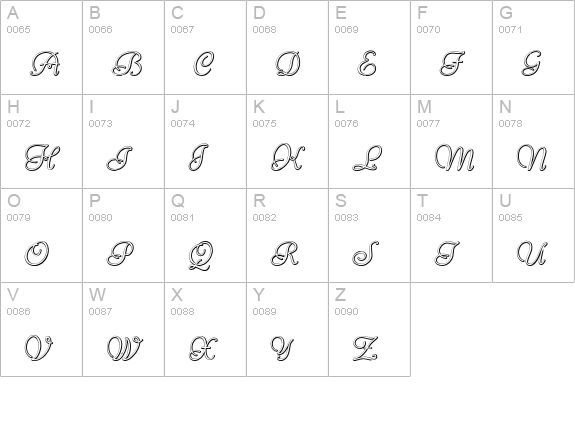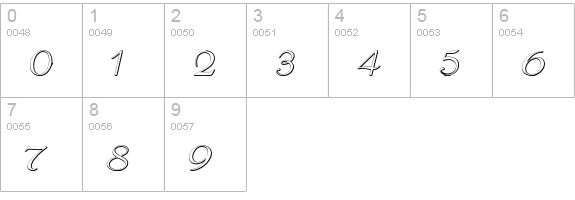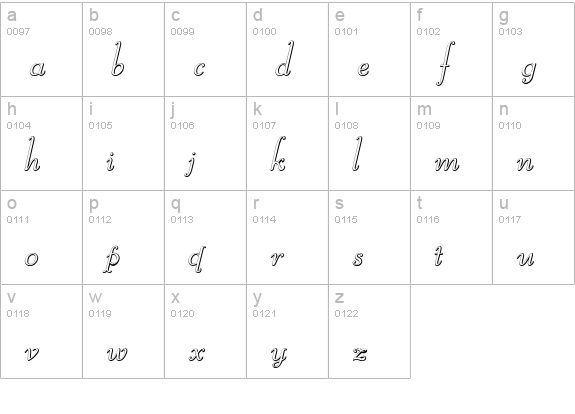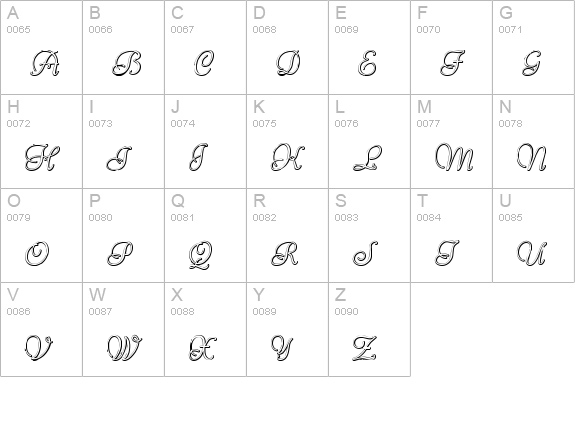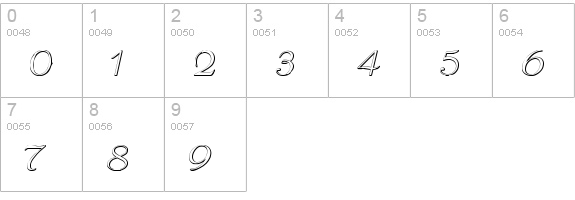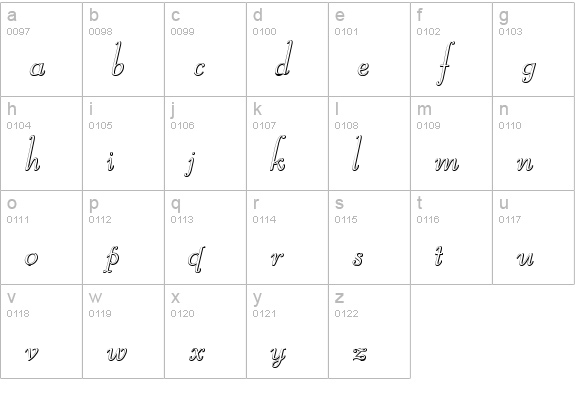
Reliant Beveled Font Details
Reliant Beveled font is a stunning typeface that exudes elegance and sophistication. With its sleek lines and beveled edges, this font is perfect for adding a touch of luxury to any design project. Whether you're creating a logo, designing a website, or crafting a beautiful invitation, Reliant Beveled font will elevate your design to new heights. What sets Reliant Beveled font apart is not only its exquisite design but also its versatility. This font can effortlessly transform any text into a work of art, making it a must-have for designers and creatives alike. From bold headlines to delicate script, Reliant Beveled font offers a range of styles that will suit any aesthetic. One of the best things about Reliant Beveled font is that it is freely available to download at FontsMarket.com. Yes, you read that right – this incredible font can be yours at no cost. FontsMarket.com is a trusted source for high-quality fonts, and they are proud to offer Reliant Beveled font as a free download for all designers and enthusiasts. So why wait? Don't miss out on the opportunity to enhance your designs with the beauty of Reliant Beveled font. Visit FontsMarket.com today and download this exquisite font for free. Elevate your design game and leave a lasting impression with Reliant Beveled font.